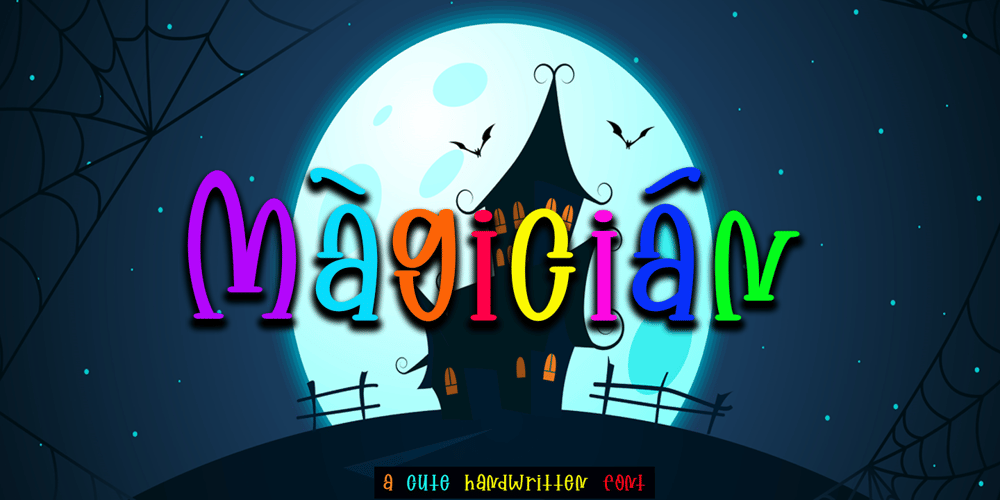
Magician Font Family was designed by Arief Tri Sulistiyono and published by Supersemarletter. Magician contains 1 styles and family package options. Magician is a beautiful display font. It will add an incredibly joyful touch to your designs. Add this lovely font to each of your creative ideas and notice how it makes them stand out!. Honestly it works perfectly for headlines, logos, posters, packaging, T-shirts and much more.Font Features :• Regular version• Character set A-Z in uppercase and lowercase• Numerals & Punctuation• Accented Characters• Multiple Languages SupportedRecommended to use in Adobe Illustrator or Adobe Photoshop with opentype feature.If you have questions, just send me a message and I’m glad to help.